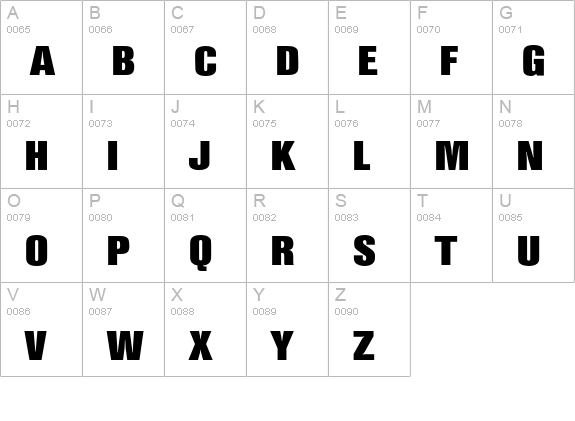
Olympia-HeavyCond Font Details
Olympia-HeavyCond font is a bold and striking typeface that exudes power and authority. With its strong, condensed letterforms and clean lines, this font is perfect for making a bold statement in your designs. Whether you're creating posters, headlines, or logos, Olympia-HeavyCond will make your text stand out with its commanding presence. The best part? Olympia-HeavyCond is available for free download at FontsMarket.com. This means you can easily add this impressive font to your collection without any cost. Don't miss out on the opportunity to enhance your designs with the impactful Olympia-HeavyCond font - download it now and start creating visually stunning projects today!